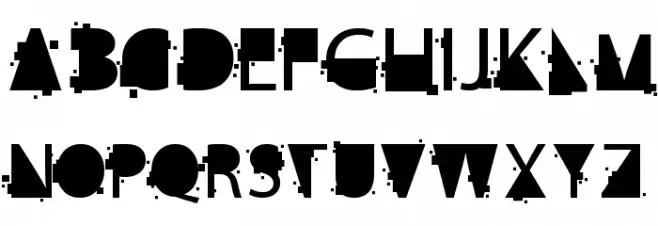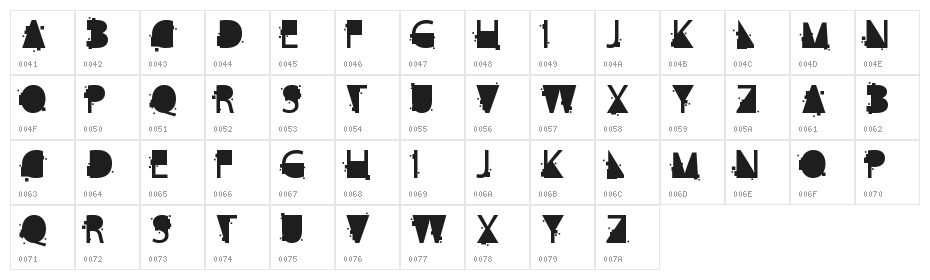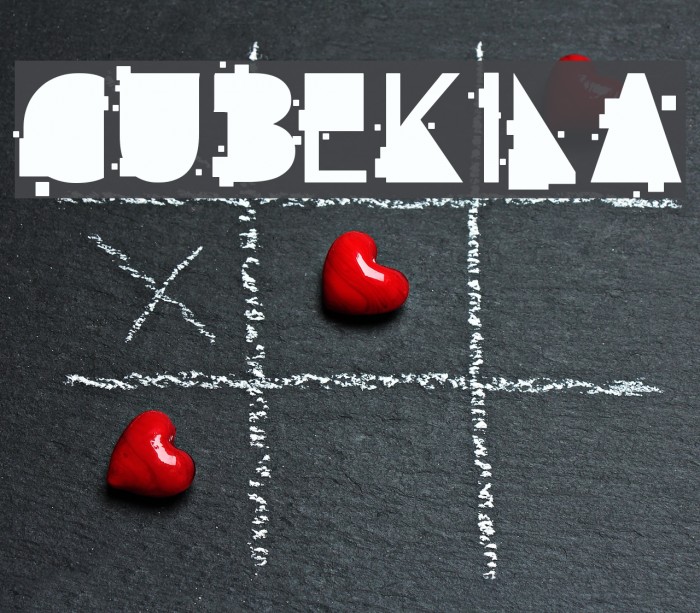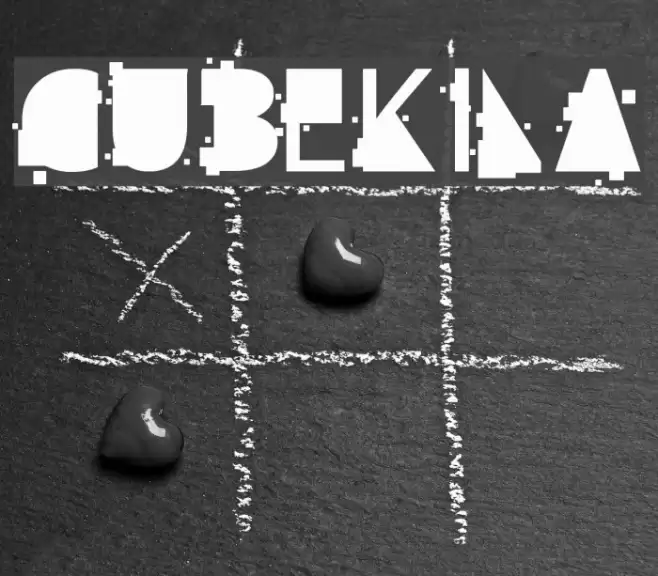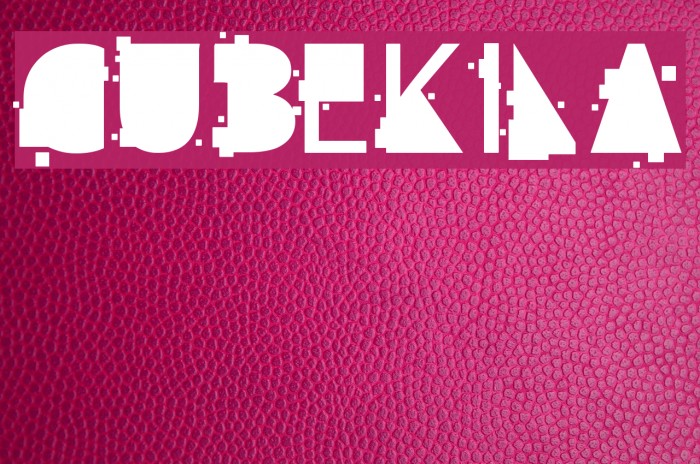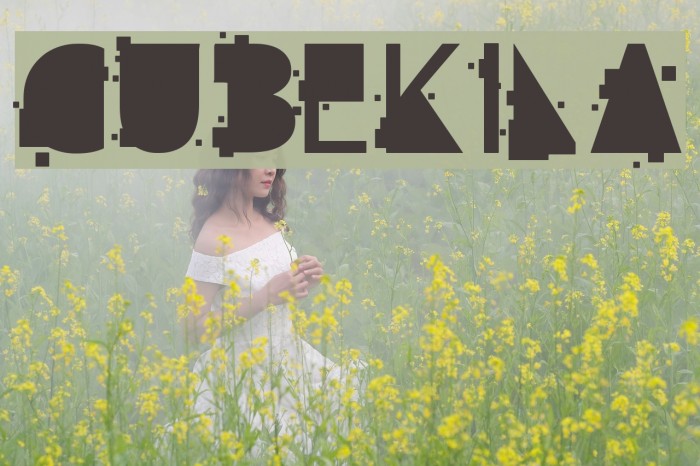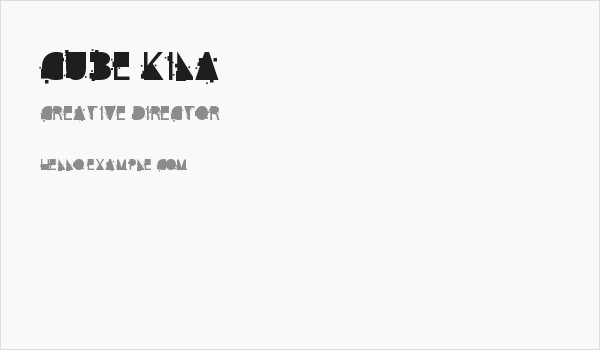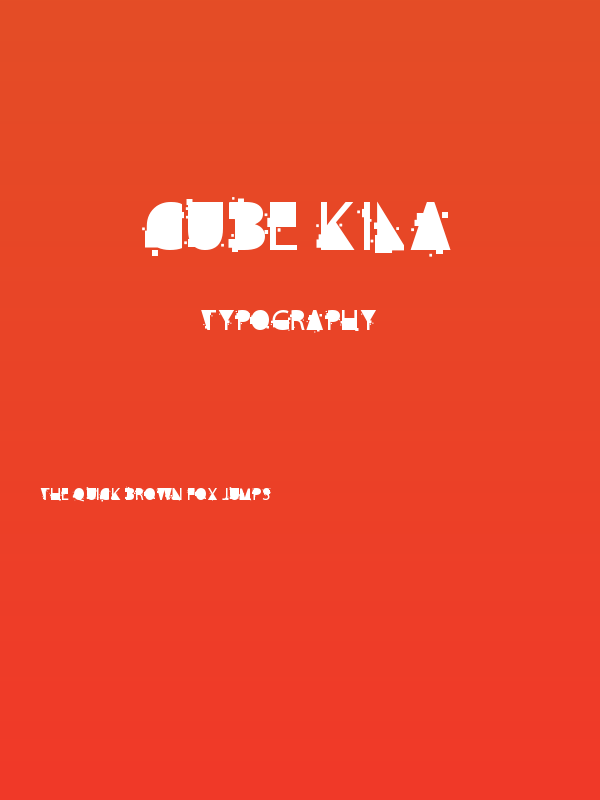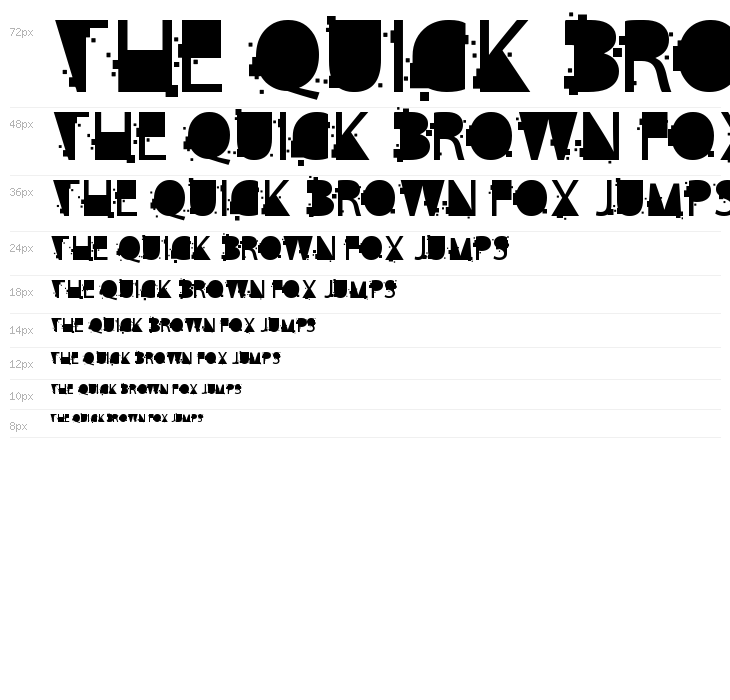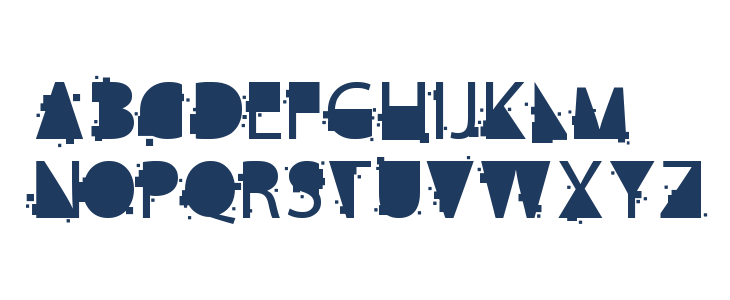
cube kila Font
cube kila Description
This font features a bold and geometric design, characterized by its blocky and angular letterforms. The uppercase letters are particularly striking, with sharp edges and a modern aesthetic that commands attention. The font's unique style is further enhanced by its consistent use of straight lines and right angles, creating a sense of uniformity and precision. The overall appearance is both futuristic and industrial, making it suitable for projects that require a strong visual impact. The font's boldness ensures that it stands out, while its geometric nature adds a contemporary touch.
| Proposed Projects | Ideal for branding, posters, and headlines that require a modern and impactful look. |